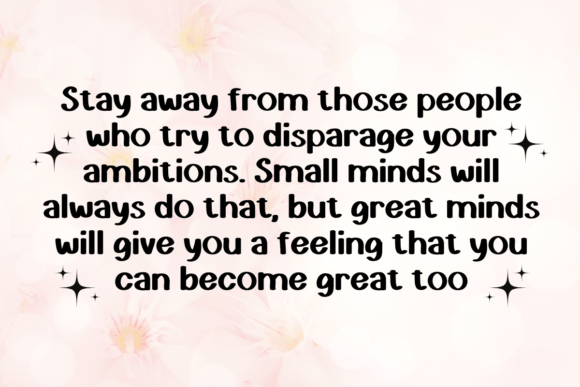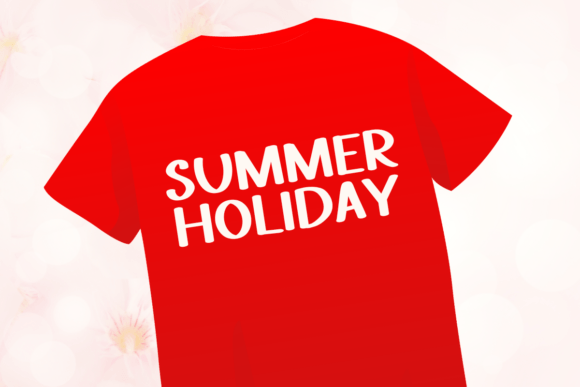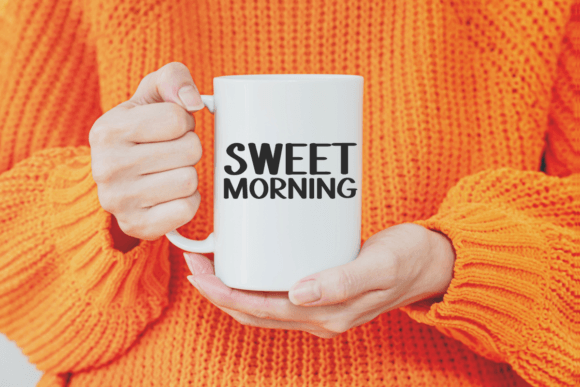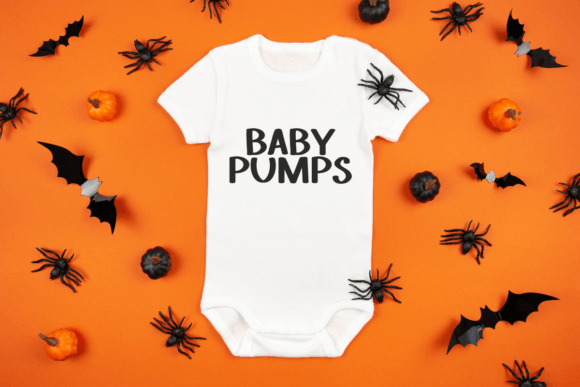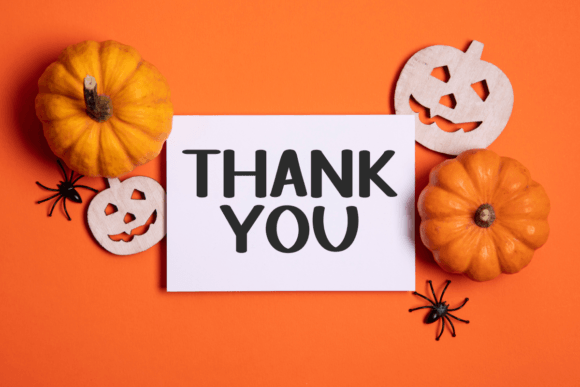
Introduction to Simple Trump Font
As designers, we’ve all had that moment when we stumble upon a font that perfectly captures the essence of our creative vision. For me, that moment came when I discovered the Simple Trump Font. Its unique blend of whimsy and clarity immediately caught my attention, and I knew I had to learn more about this delightful sans-serif font.
With its playful curves and rounded edges, the Simple Trump Font radiates a warm, inviting personality that’s perfect for a wide range of creative projects. Whether you’re working on a children’s book, designing invitations, or building a brand, this font is sure to bring a touch of sweetness and charm to your designs. And the best part? It’s a high-quality font that’s available for free download, making it an invaluable design resource for any creative project.
Key Features of Simple Trump Font
- High-quality design with a transparent background, ideal for creative projects and design resources.
- Font size: 1000 characters, covering a wide range of languages and characters.
- Unique characteristics include a modern, clean aesthetic and a versatile design that can be used for various creative projects.
- Perfect for designers, artists, and creatives working on high-quality design resources, including logos, branding, and marketing materials.
Honest Review: Simple Trump Font
I recently stumbled upon the Simple Trump Font, and I must say it’s been an interesting experience. As a designer, I appreciate fonts that are both visually appealing and functional. In this review, I’ll share my honest thoughts on this font, highlighting what works well and what doesn’t.
- The font’s high quality is immediately noticeable, with clean lines and a modern feel.
- The transparent background allows for seamless integration with any design.
- The font’s limited character set might make it less suitable for lengthy text-based projects.
- The design may not be ideal for certain industries or themes, such as professional or formal settings.
Overall, I think the Simple Trump Font is a solid choice for designers looking for a modern, high-quality font for their creative projects. While it may have some limitations, it’s a great resource to have in your design arsenal.
Simple Trump Font: A Practical Application Guide
What is Simple Trump Font?
Simple Trump Font is a high-quality font that can be used in a variety of creative projects. It features a transparent background, making it a versatile design resource.
Tips for Getting the Most Out of Simple Trump Font
Use Simple Trump Font in conjunction with other high-quality design resources to create a visually appealing design. Experiment with different font sizes and styles to achieve the desired effect.
Common Use Cases for Simple Trump Font
Simple Trump Font is commonly used in creative projects such as logos, business cards, and brochures. Its transparent background makes it a versatile design resource for a variety of applications.